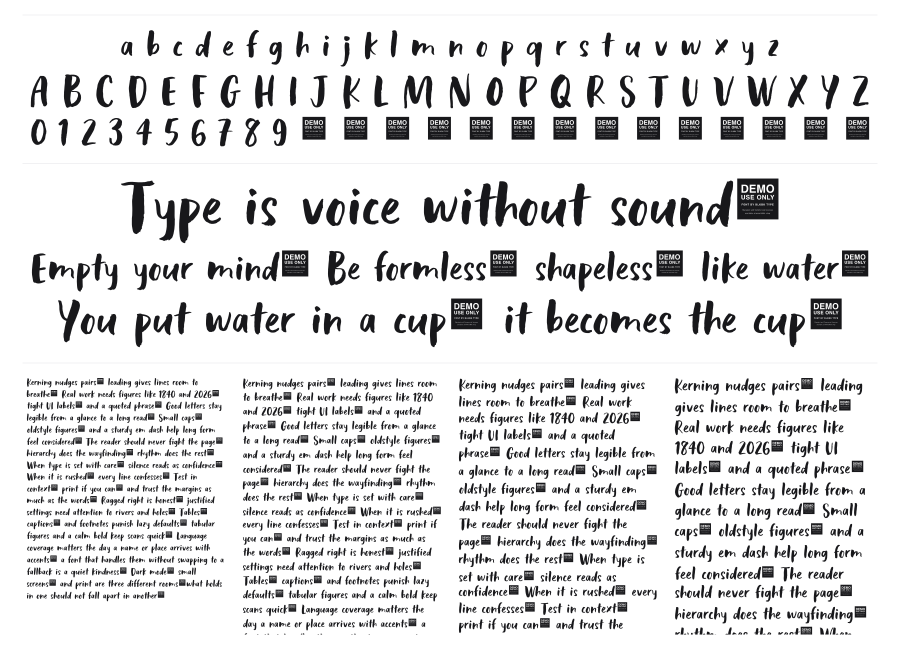
Cosmic Rays
Cosmic Rays is a bold brush typeface from BLKBK Fonts with thick, sweeping strokes that carry real kinetic energy. The letterforms feel fast and expressive, like someone attacked a poster with a loaded brush and didn't slow down. It's built for headlines, event posters, and album art where you want type that feels physical and unapologetically loud.